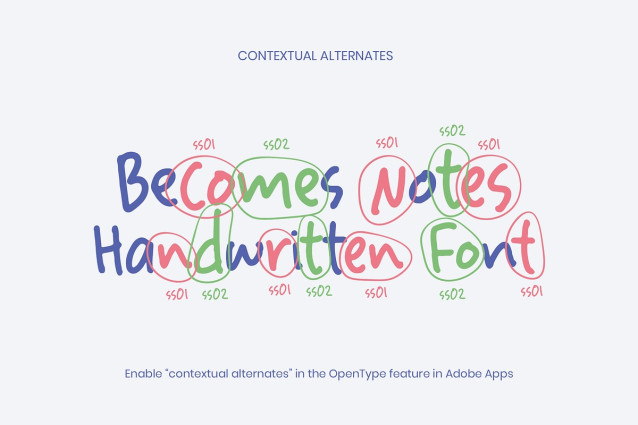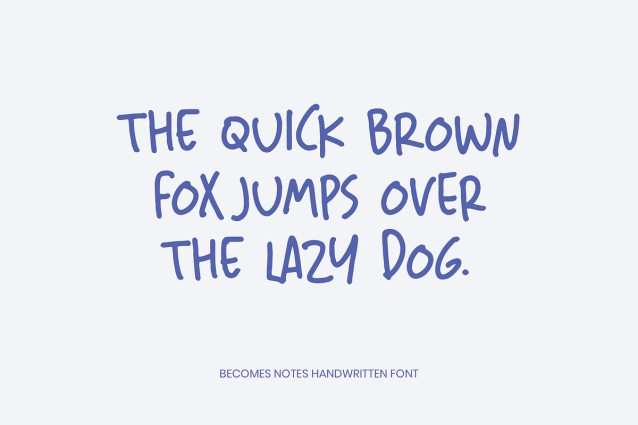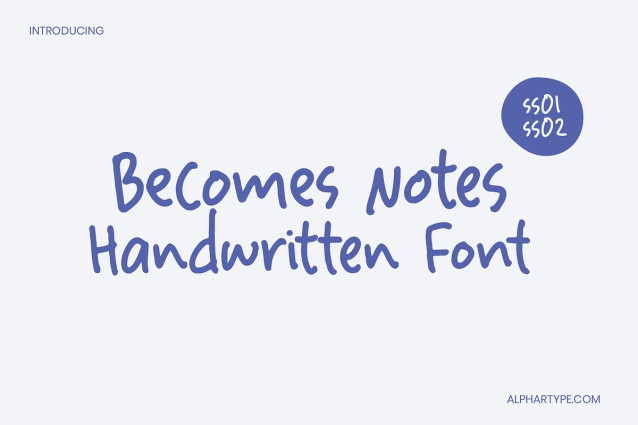
Becomes Notes Handwriting Font
Becomes Notes Handwriting Font hailed as the ultimate choice for those seeking the best font for notes. This font captures the essence of vibrancy and clarity, adding a touch of personality to your written words. The carefully crafted characters make Becomes Notes an ideal companion for note-taking, ensuring your ideas stand out with brilliance.
Becomes Notes Handwritten Font is not just a font; it’s a celebration of expression. Whether you’re jotting down thoughts, creating study materials, or simply making your notes visually appealing, Becomes Notes offers versatility and charm. Elevate your note-taking experience with the captivating hues of this extraordinary font.